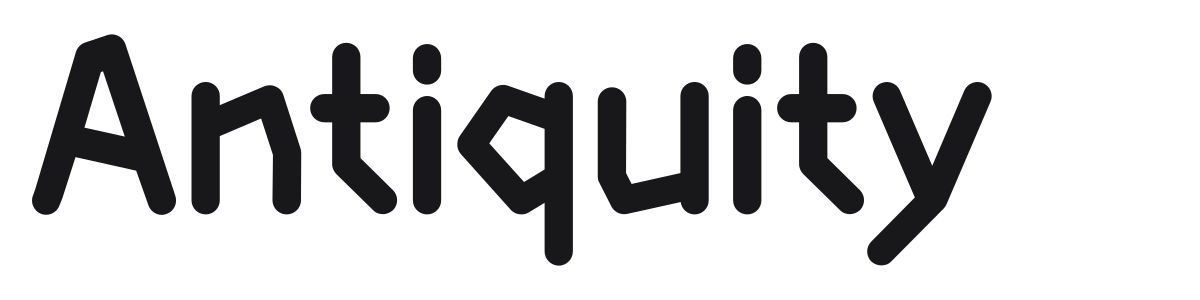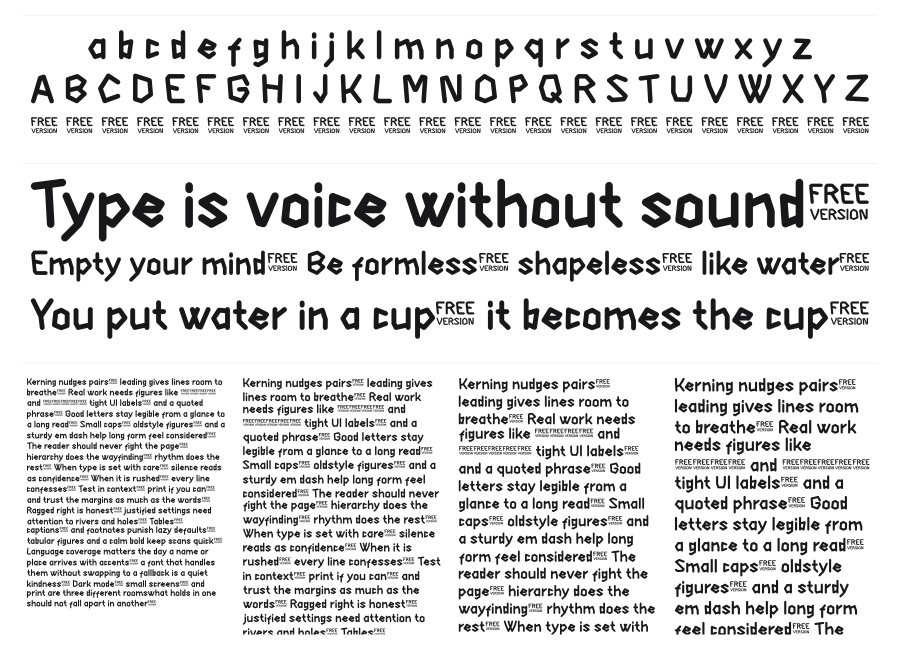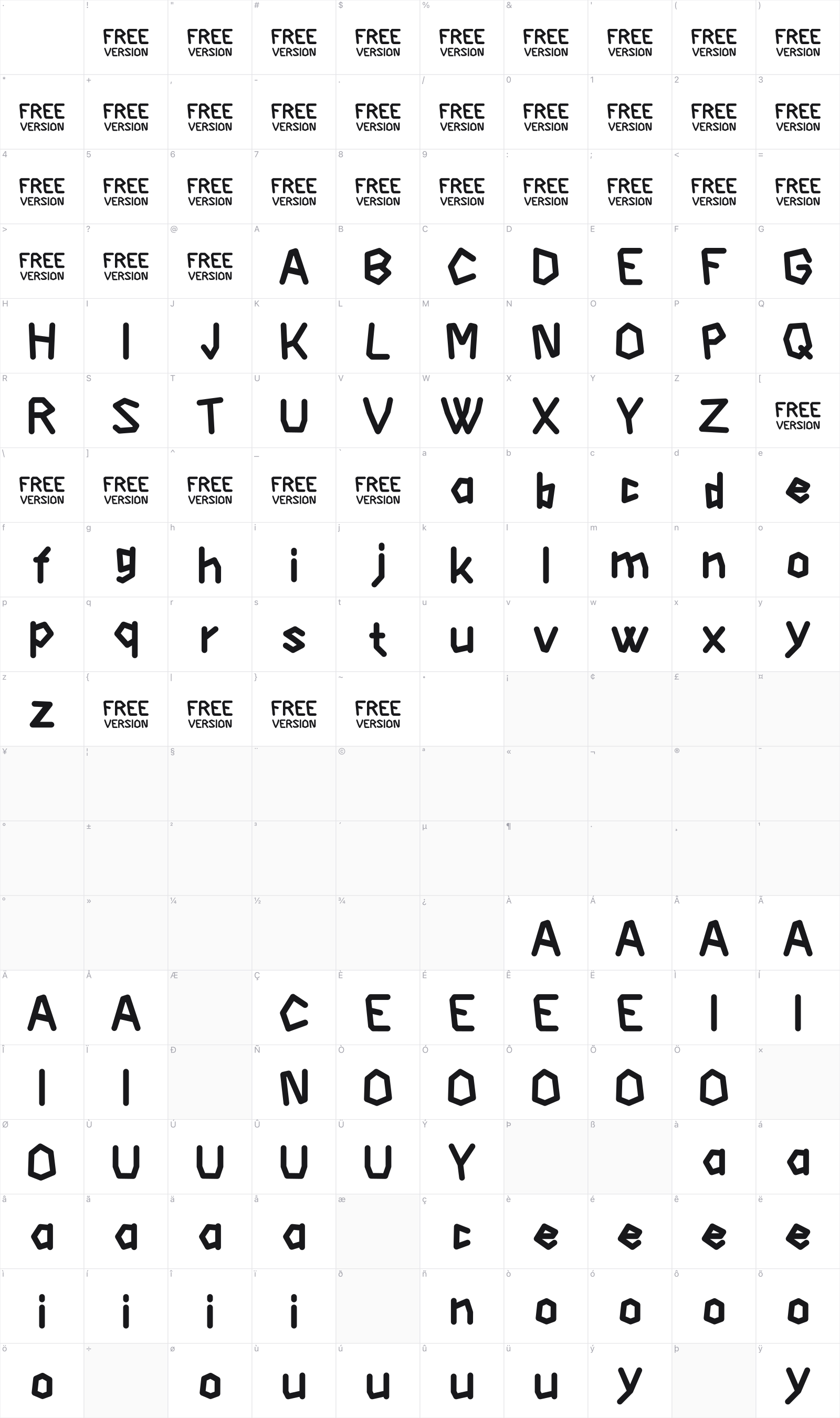
Antiquity
Antiquity is a bold display font that blends medieval stonework aesthetics with a hand-carved, irregular energy. The chunky strokes, notched cuts, and angular terminals give each character a raw, artisanal quality that feels both ancient and playful. It works best at large sizes where its quirky personality can fully register.